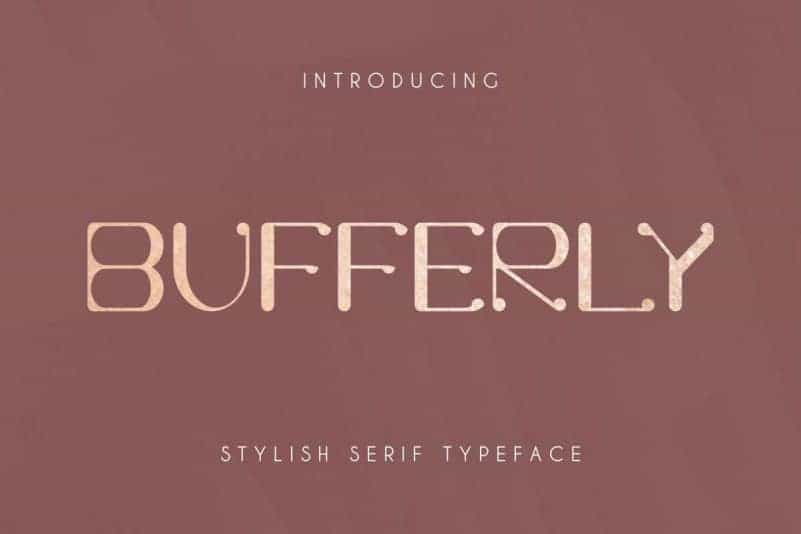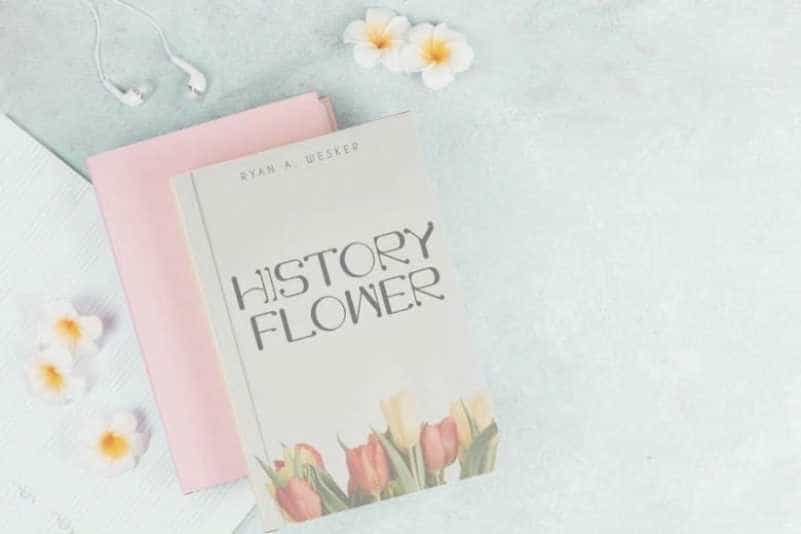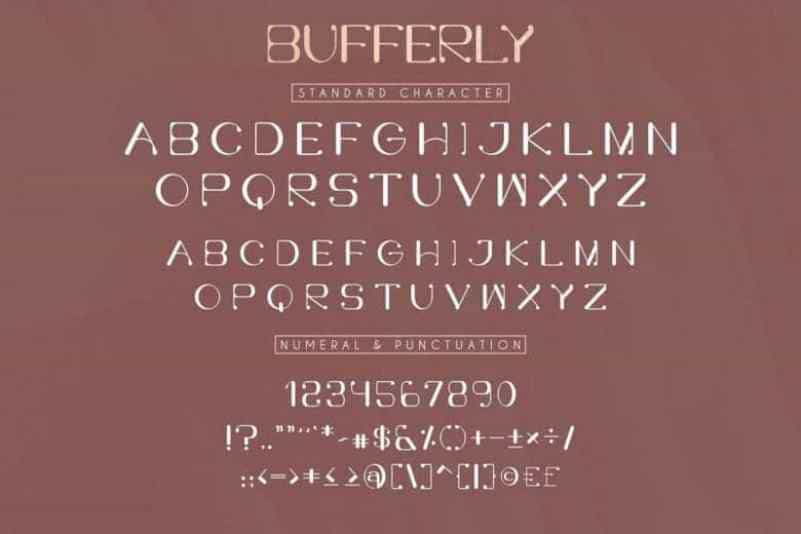
It’s perfect balance between smooth and sharp makes Bufferly a modern-styled serif typeface. This one font can make a perfect combination that is to beautify your designs–smooth and strong. It’s perfect for typesetting beautiful images like logos, titles of web pages, or even mash heads!